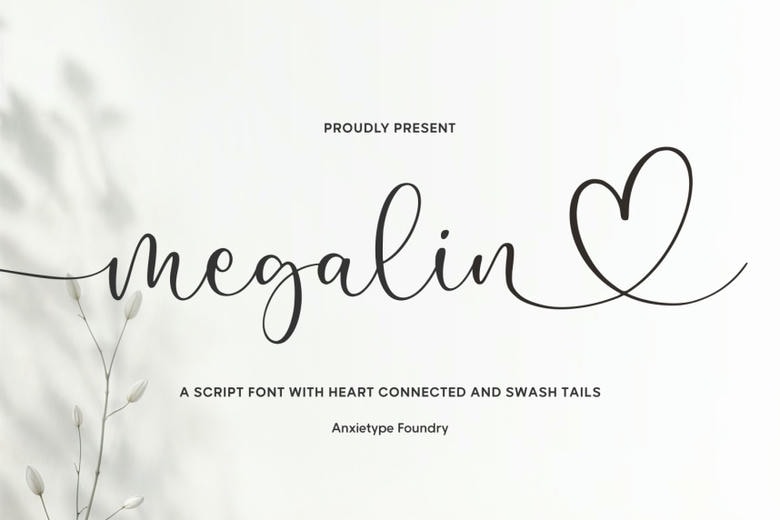
Megalin Font
Megalin – Heart Connect Script Font by Anxietype Foundry is a beautiful and elegant script font that adds a fresh look to your creative projects. It was designed with care and attention to detail. You can use it for branding, crafting, logos, and invitations.
This font also adds elegance to romantic designs. Celindine is great for sharing heartfelt messages, whether for weddings, Valentine’s Day, or gifts for loved ones.
Megalin Calligraphy Script Font